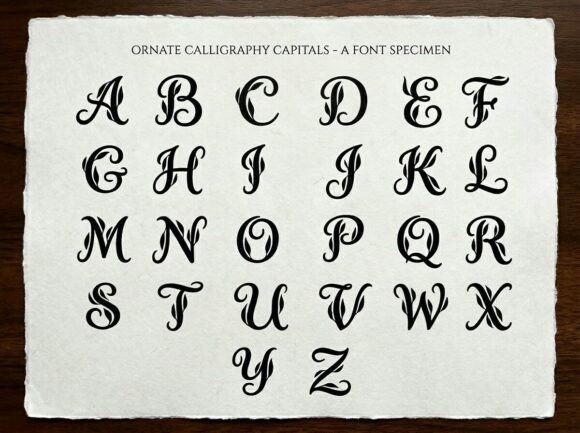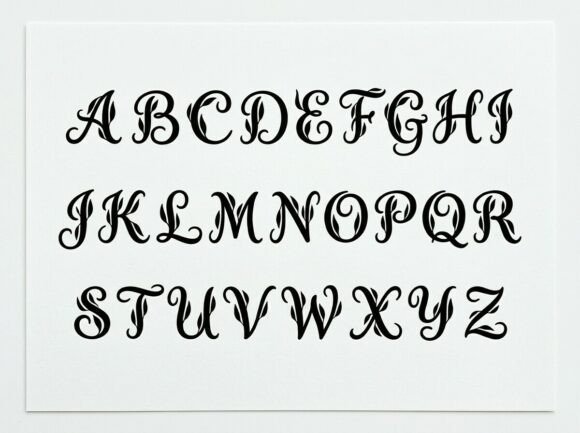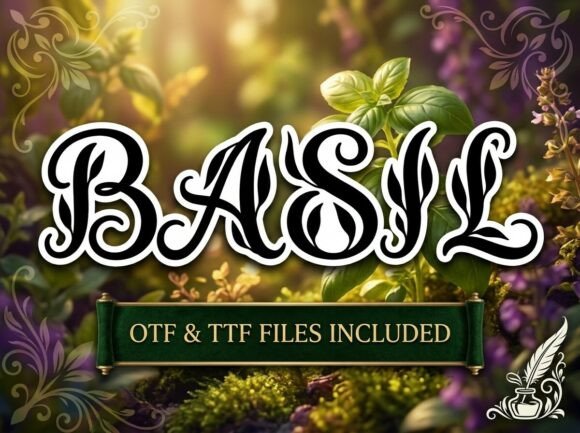
The Ultimate Display Font: Unleashing the Power of Basil Font
I’ll never forget the design project that led me to discover Basil Font. I was working on a luxury packaging project for a high-end fashion brand, and I needed a font that would make a statement. I spent hours scouring the internet for the perfect typeface, but nothing seemed quite right. That was until I stumbled upon Basil Font. Its unique artistic flourishes and commanding visual personality immediately caught my attention. I knew I had found the perfect fit.
Basil Font is an avant-garde decorative display font that’s engineered to be the focal point of any composition. Here are some things I love about it:
- ✨ Unique artistic flourishes that add a touch of sophistication to any design
- ✅ High-end, polished finish that’s perfect for luxury packaging and branding
- 💥 Strong visual personality that demands attention
- 🎨 Versatile and can be used for a variety of design projects, from editorial layouts to social media graphics
However, there are a few quirks to be aware of:
- 🤔 Basil Font is an all-caps (uppercase only) display typeface, which may limit its use for body text or other applications where lowercase letters are necessary
- ⚠️ Some users may find the font’s strong visual personality overwhelming or difficult to pair with other typefaces
The Designer Inspiration Behind Basil Font
Basil Font was designed with the creative rebel in mind. The designer behind Basil Font wanted to create a typeface that would allow designers to push the boundaries of conventional typography and create something truly unique. The result is a font that’s both avant-garde and sophisticated, with a strong visual personality that’s sure to make a statement.
| Is Basil Font suitable for body text? | No, Basil Font is an all-caps display typeface that’s best suited for headlines, titles, and other display text. It’s not recommended for body text or other applications where readability is a concern. |